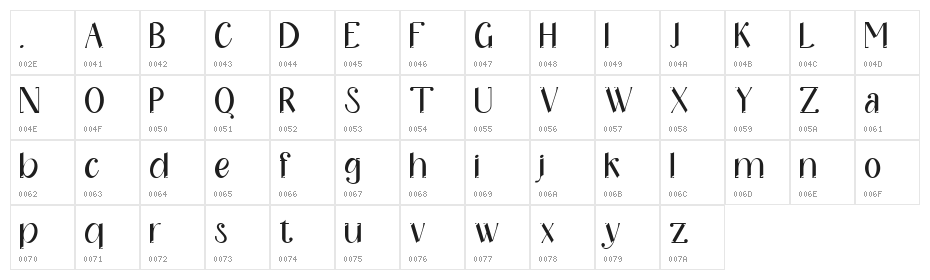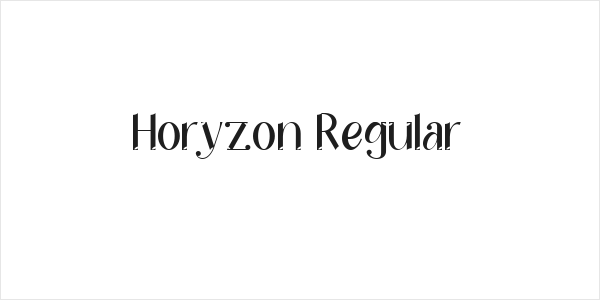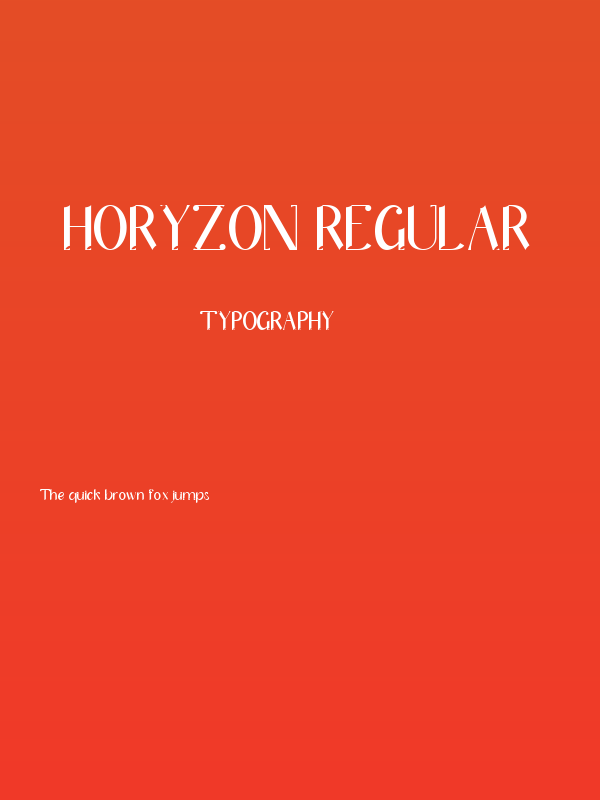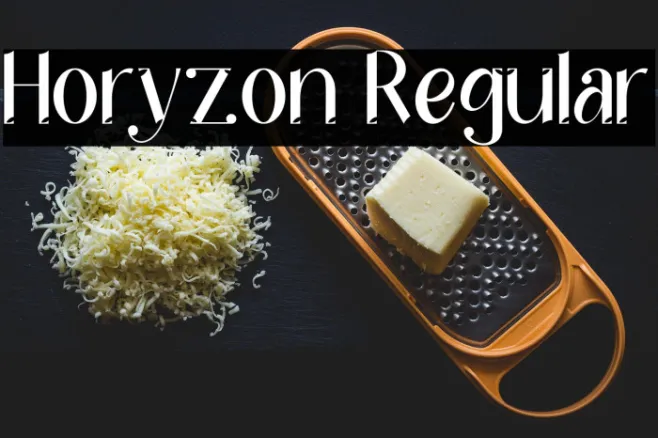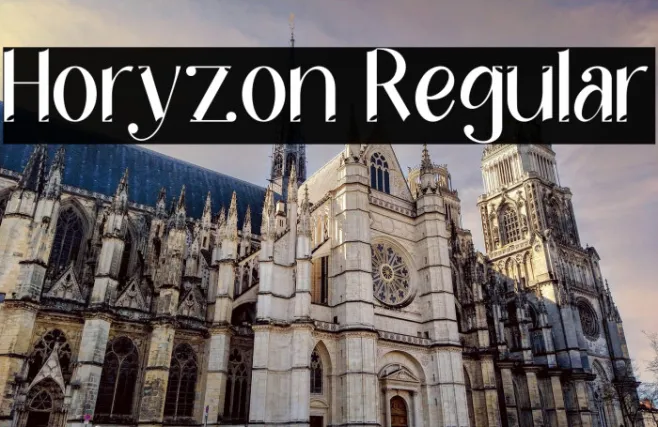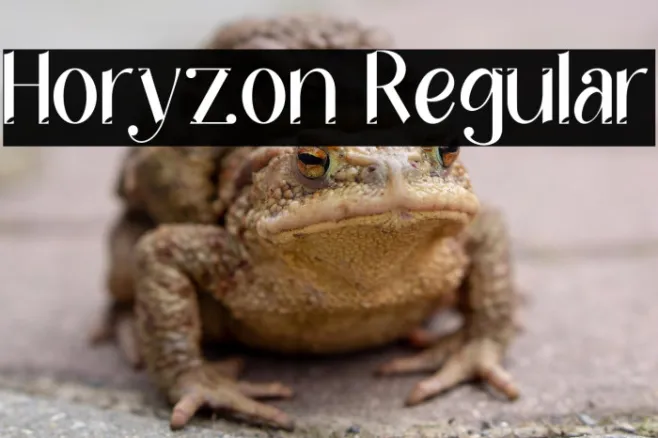
Horyzon Regular Font
Horyzon Regular Description
This font features a unique blend of modern and vintage styles, characterized by its tall, elegant letterforms and distinctive geometric elements. The uppercase letters are particularly striking, with sharp angles and subtle curves that add a touch of sophistication. The lowercase letters maintain a consistent style, with smooth, flowing lines that enhance readability. The font's overall design is both artistic and functional, making it suitable for a variety of creative projects. Its clean lines and balanced proportions make it ideal for use in branding, editorial design, and advertising. The font's versatility is further enhanced by its ability to convey both a contemporary and classic feel, depending on the context in which it is used.
| Overall Style | Modern, Vintage |
| Proposed Projects | Ideal for branding, editorial design, advertising, and creative projects. |